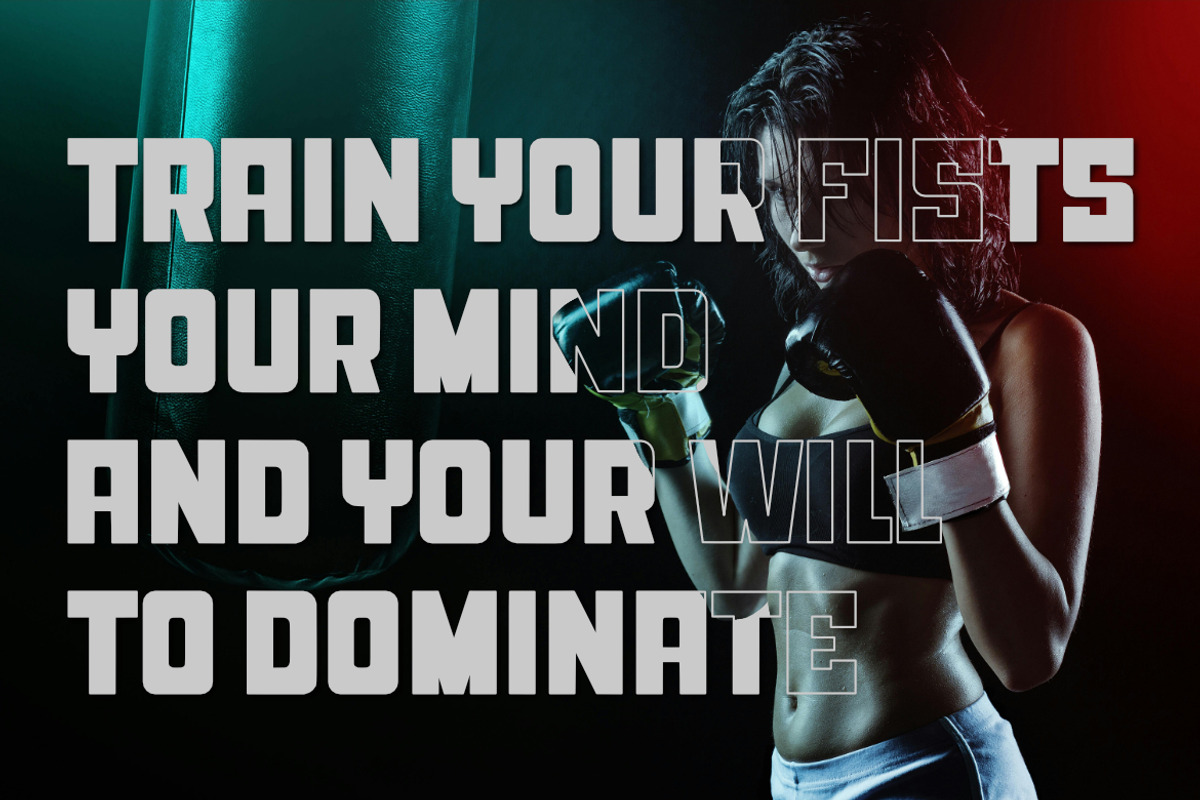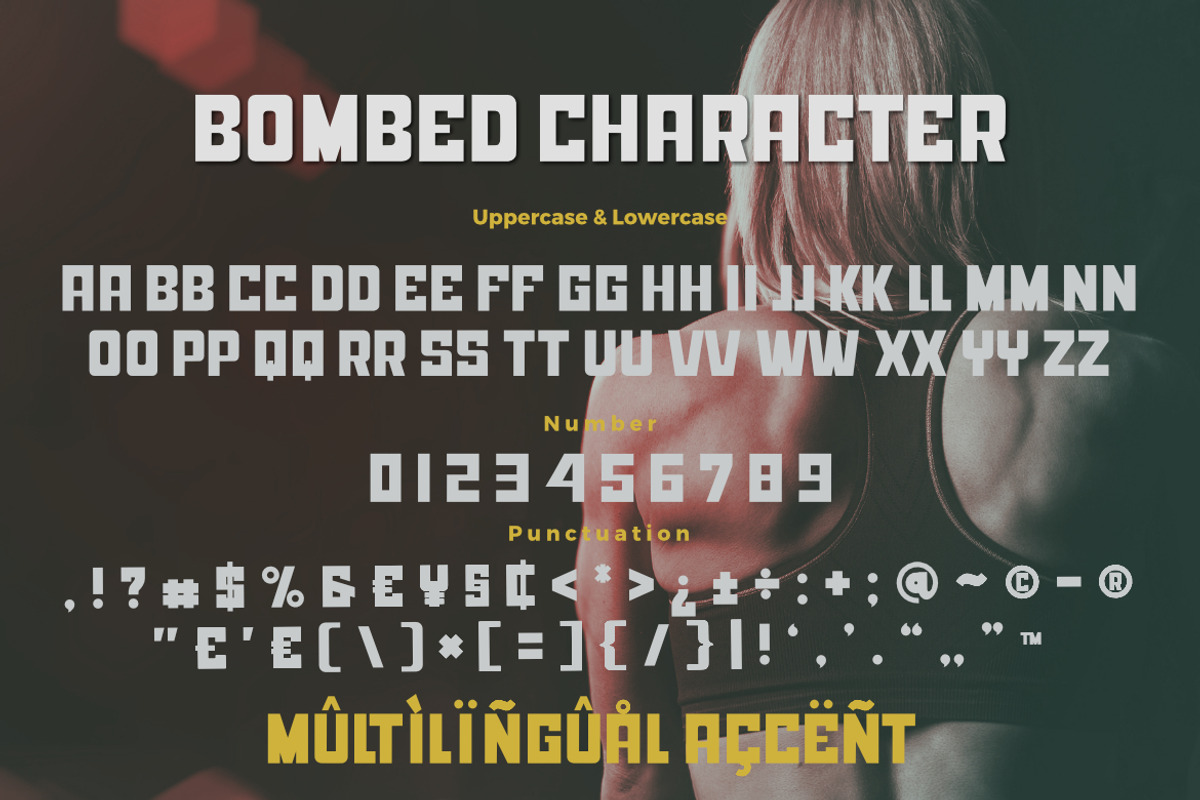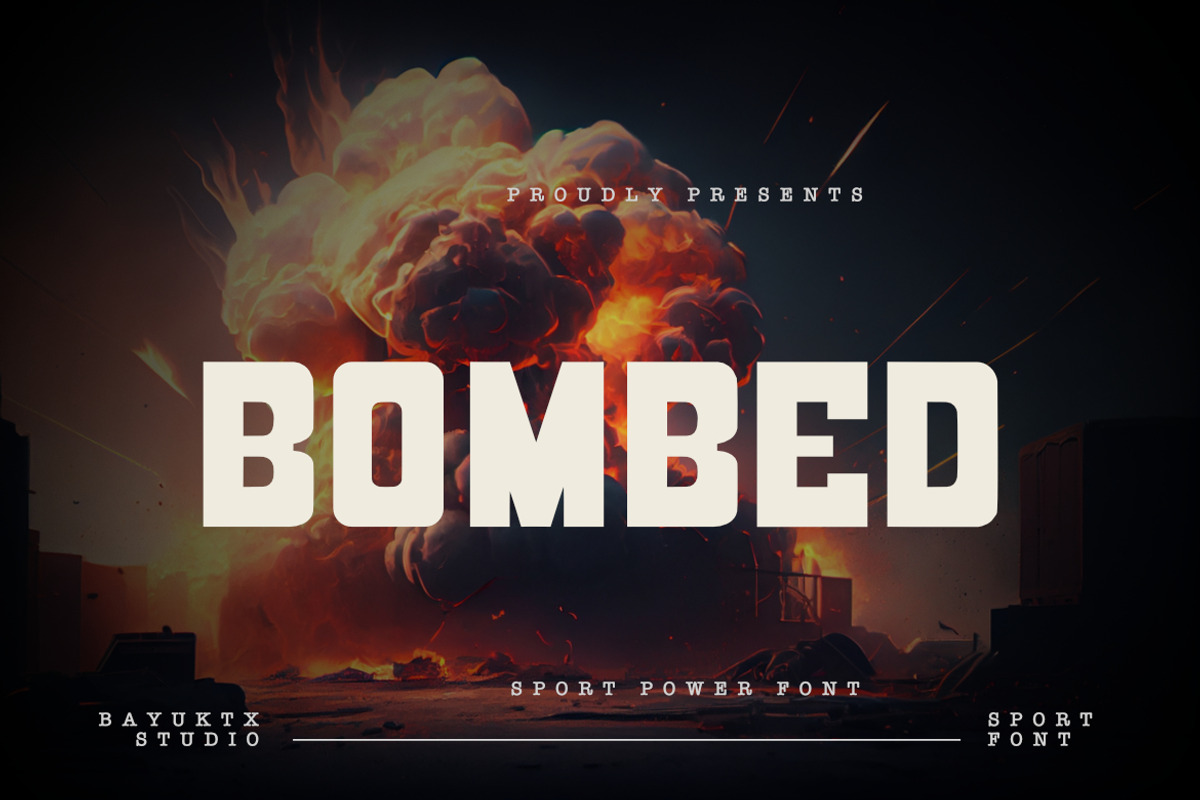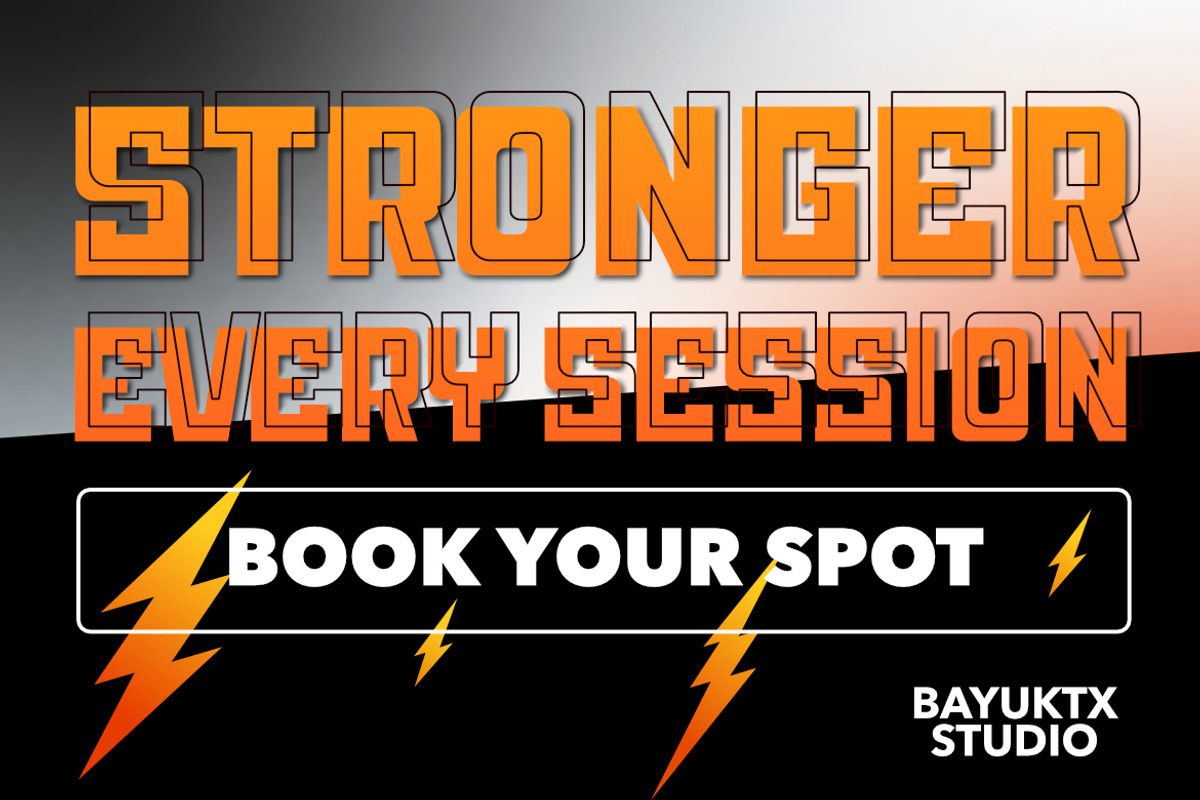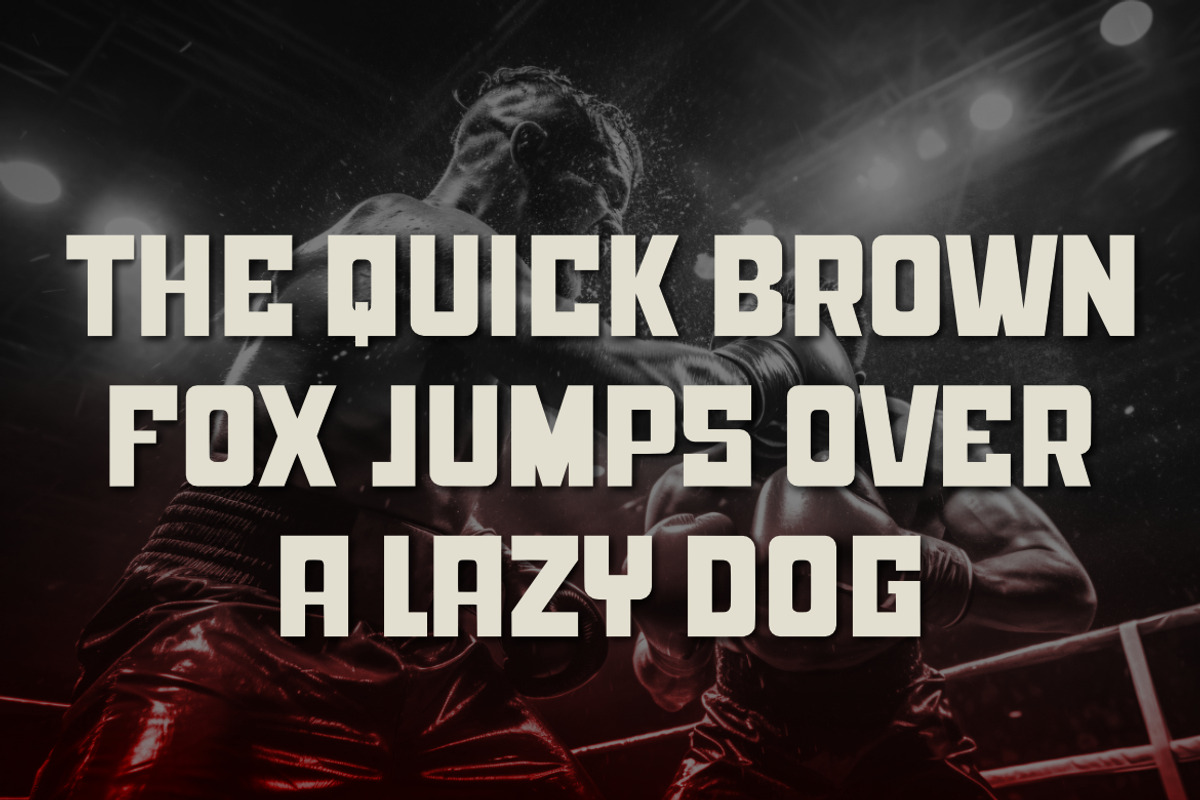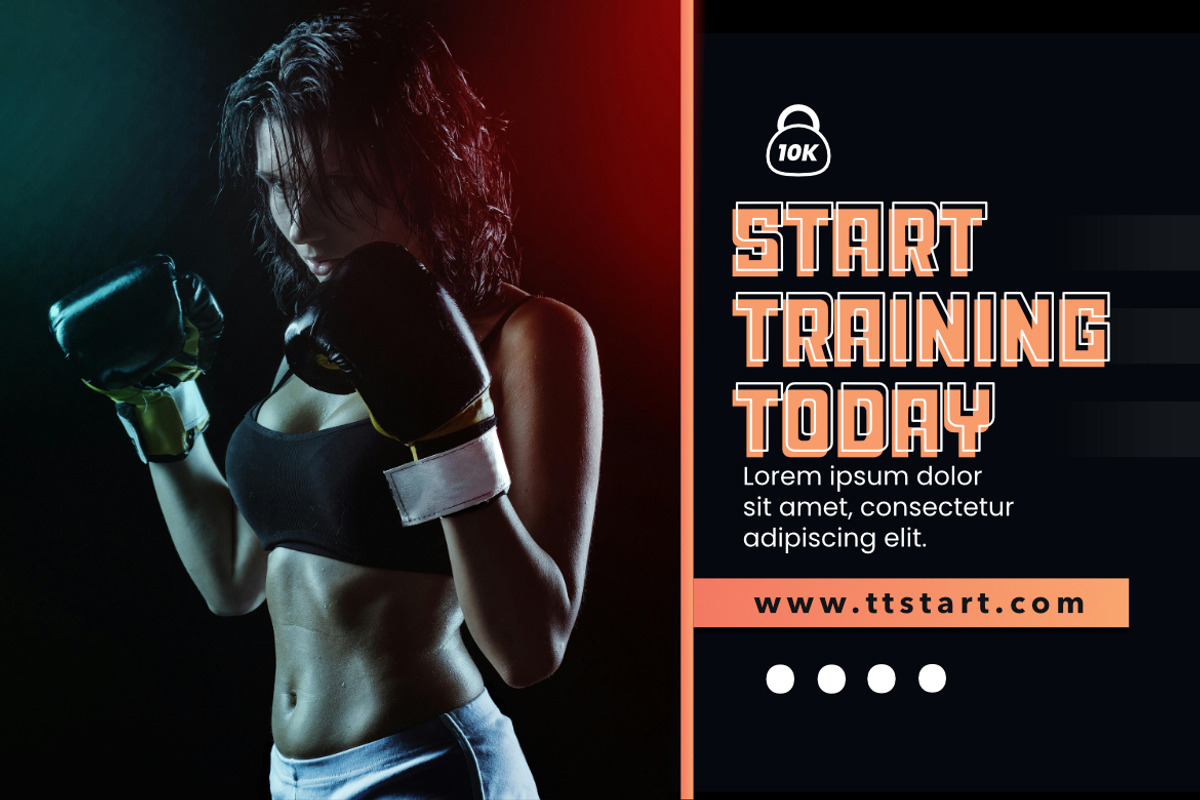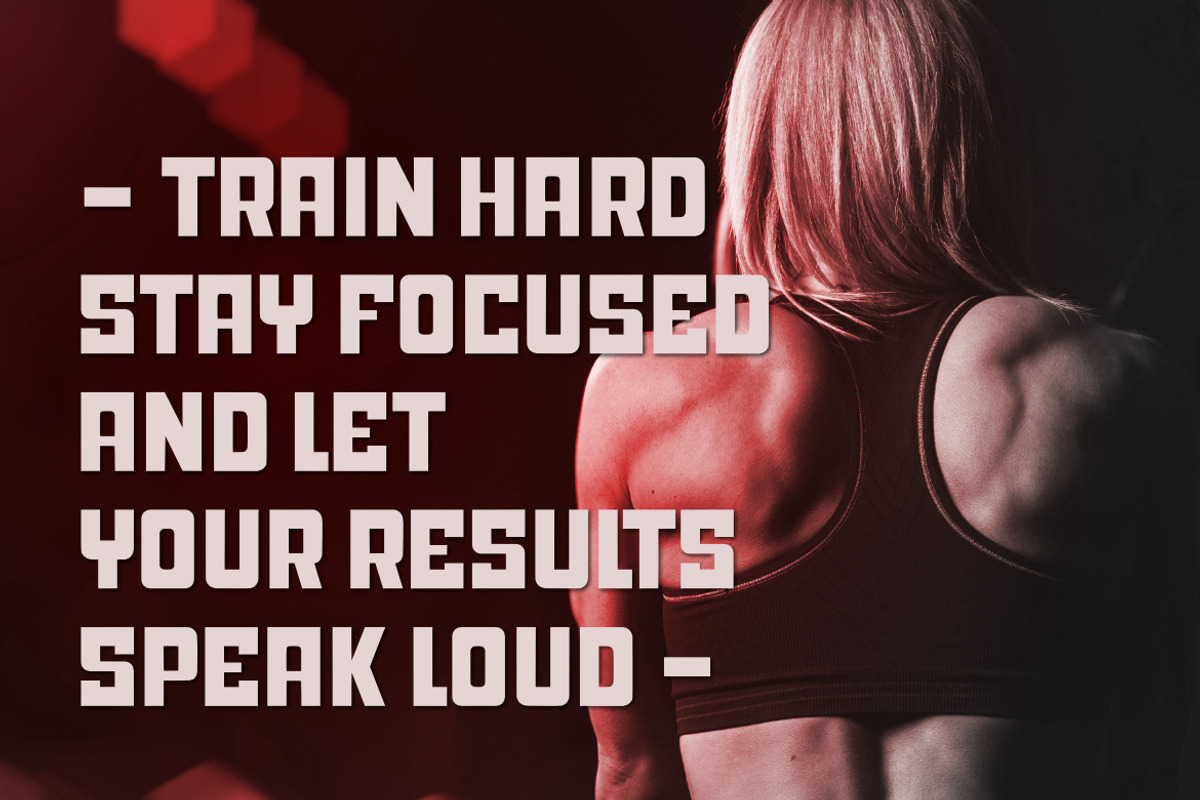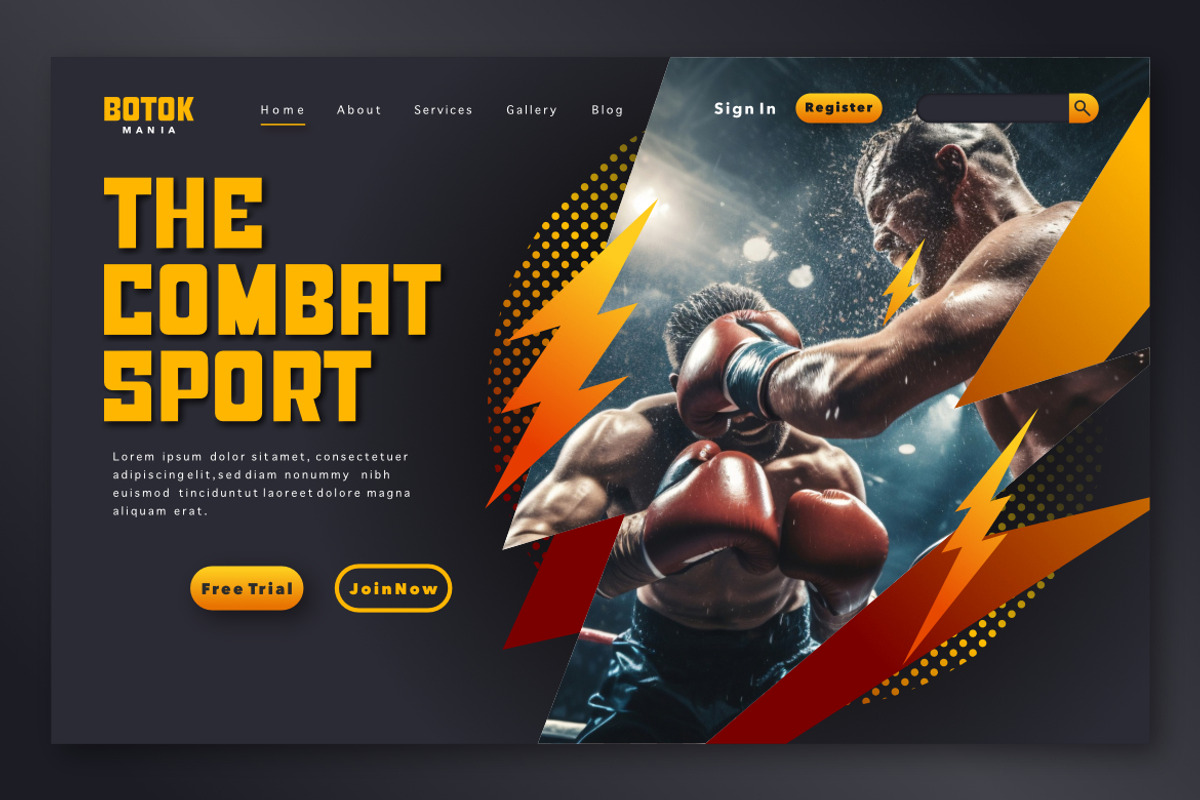
Bombed Sport Power Font
Bombed Sport Power Font captures the fierce energy and unstoppable strength of athletic design. Built for impact and performance, this typeface embodies power, precision, and motion — perfect for projects that demand bold visual intensity.
With its sharp edges, dynamic lines, and modern athletic aesthetic, Bombed radiates dominance and confidence. Each letter strikes with force, delivering a powerful statement for sports branding, fitness gear, or energetic typography compositions.
Whether used for logos, merchandise, posters, or esport titles, this font brings the adrenaline of competition to every word — strong, fearless, and unbreakable.
Key Features :
Suitable For :
- Sport & Fitness Branding
- Esport Logos & Team Identity
- Gym Posters & Merchandise Design
- Motivational Quotes & Banners
- Action Titles & Dynamic Typography
With Bombed Sport Power Font, every design hits hard — fueled by strength, speed, and confidence.